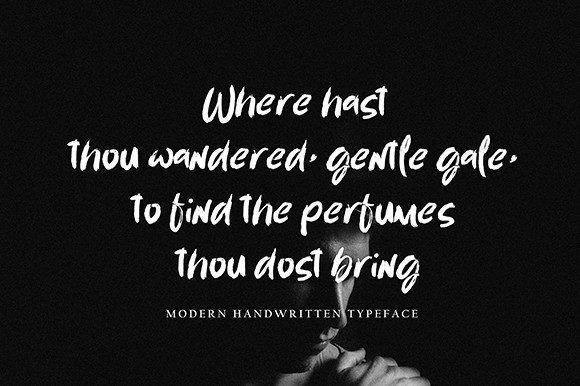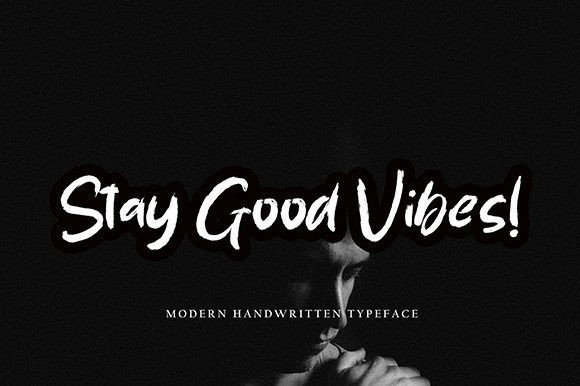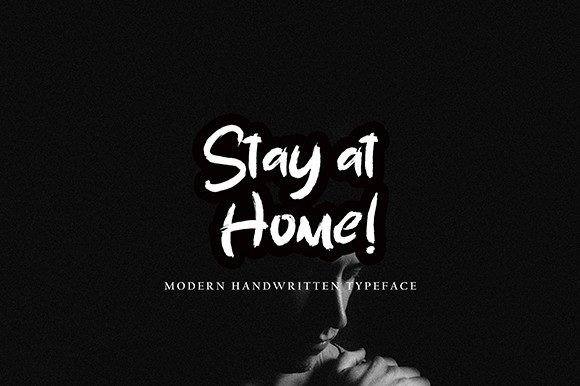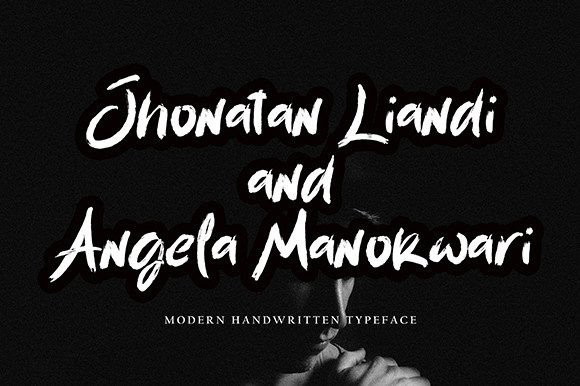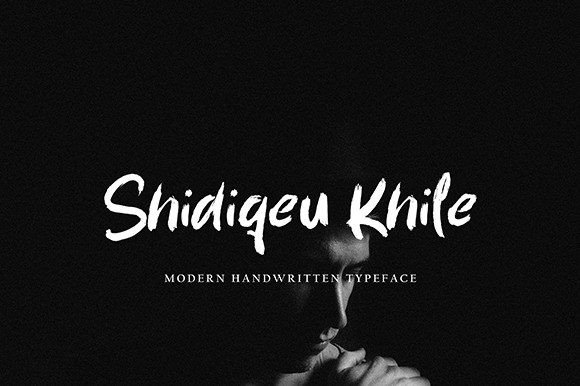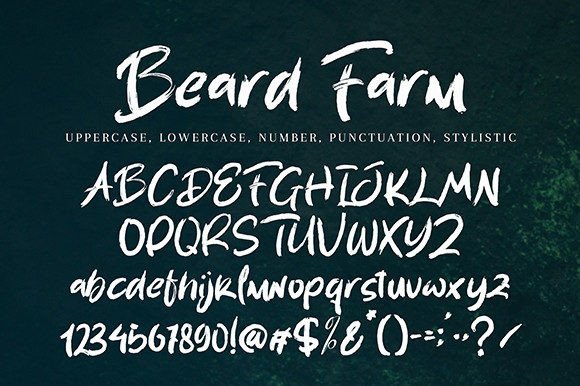
Introducing Beard Farm Font: Elevate Your Designs with Elegance and Style
In the world of digital design, fonts play a crucial role in conveying the tone and aesthetic of a project. For designers and crafters looking to add a touch of elegance and sophistication to their work, the Beard Farm Font is an exceptional choice. This stylish and elegant handwritten font is perfect for a variety of design applications, from wedding invitations and greeting cards to logos and business cards.
The Charm of Beard Farm Font
Beard Farm Font is a beautifully crafted handwritten font that exudes charm and sophistication. Its elegant strokes and refined lettering make it an ideal choice for designers seeking to create stunning visual content. Whether you’re working on a wedding invitation, a thank you card, or a quote, this font is sure to impress.
One of the standout features of Beard Farm Font is its versatility. This font can be used across a wide range of design applications, including:
- Wedding invitations: Add a touch of romance and elegance to your wedding stationery with Beard Farm Font.
- Thank you cards: Express your gratitude in style with this beautiful handwritten font.
- Quotes: Make your quotes stand out with the elegant and refined lettering of Beard Farm Font.
- Greeting cards: Create stunning greeting cards for any occasion with this versatile font.
- Logos: Use Beard Farm Font to create a unique and memorable logo for your brand.
- Business cards: Elevate your business cards with a touch of sophistication and elegance.
Why Choose Beard Farm Font?
So, what sets Beard Farm Font apart from other fonts? Here are just a few reasons why designers and crafters love this font:
- Elegant and sophisticated: Beard Farm Font is the perfect choice for designers seeking to create elegant and sophisticated visual content.
- Handwritten charm: This font boasts a beautiful handwritten quality that adds a touch of warmth and personality to any design.
- Versatile: Use Beard Farm Font across a wide range of design applications, from wedding invitations to logos and business cards.
- Easy to read: Despite its elegant and refined lettering, Beard Farm Font is easy to read, making it perfect for body text and captions.
Tips for Using Beard Farm Font
To get the most out of Beard Farm Font, here are a few tips to keep in mind:
- Pair with complementary fonts: Combine Beard Farm Font with complementary fonts to create a unique and visually appealing typography scheme.
- Experiment with colors: Try pairing Beard Farm Font with different colors to create a range of different moods and aesthetics.
- Use across different design applications: Don’t be afraid to use Beard Farm Font across different design applications, from digital designs to print materials.
In conclusion, Beard Farm Font is a stylish and elegant handwritten font that is perfect for designers and crafters seeking to add a touch of sophistication and elegance to their work. With its versatility, charm, and ease of use, this font is sure to become a staple in any designer’s toolkit. Whether you’re working on a wedding invitation, a logo, or a business card, Beard Farm Font is an exceptional choice.